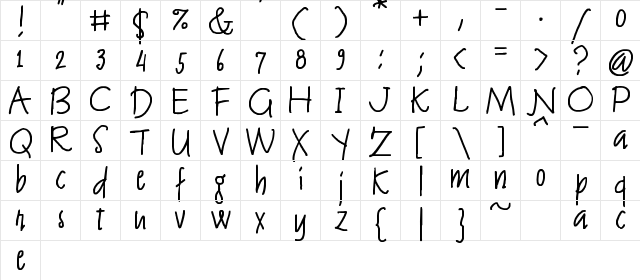
James Almacen Regular
Design Context for James Almacen Typeface
James Almacen is a composed and adaptable typeface that performs quietly and consistently across a wide range of design contexts.
Pro Tip: Use James Almacen in both headline and body roles to test its range before committing to a single application.